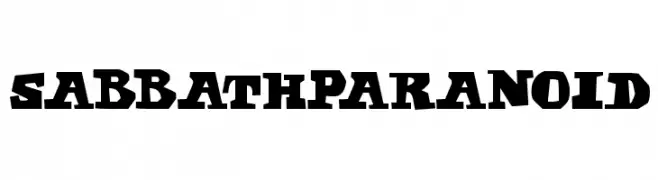
A playful, hand-drawn font with a lively and informal style.
A playful, hand-drawn font with bold, rounded strokes and a whimsical style.
A modern, artistic font with parallel line design and geometric shapes.
A bold, modern font with a gradient line pattern for a striking visual effect.
An elegant, bold italic font with high contrast and classic styling.
A bold, decorative font with a shadow effect, offering a modern and classic look.
An artistic and decorative font with intricate line work and an Art Deco influence.
A high-contrast, elegant font with modern and classic elements.
A bold, college-style font with angular serifs and a double-line shadow effect.
A bold, decorative font with a 3D effect and intricate line work.
A bold, italicized font with a 3D effect, perfect for striking and modern designs.
A modern, sleek font with elongated, rounded characters and a futuristic feel.
A bold, modern font with geometric and uniform characteristics.
A bold and italic font with a modern, dynamic style.
A sleek, modern italic font with elongated characters and consistent stroke width.
A modern, geometric font with outlined characters and a linear style.
A modern, geometric font with clean lines and consistent stroke widths.
A modern, geometric outline font with clean, continuous lines.
A decorative font with intricate swirls and vine-like embellishments.
A modern, minimalist font with thin, elongated strokes and geometric structure.
A modern, interconnected font with continuous lines and geometric shapes.
A futuristic and geometric font with continuous line designs and a modern aesthetic.
A sketch-like, hand-drawn font with textured, artistic lines.
A playful, jagged font with a hand-cut paper aesthetic.
A bold, italic font with a dynamic and modern style.